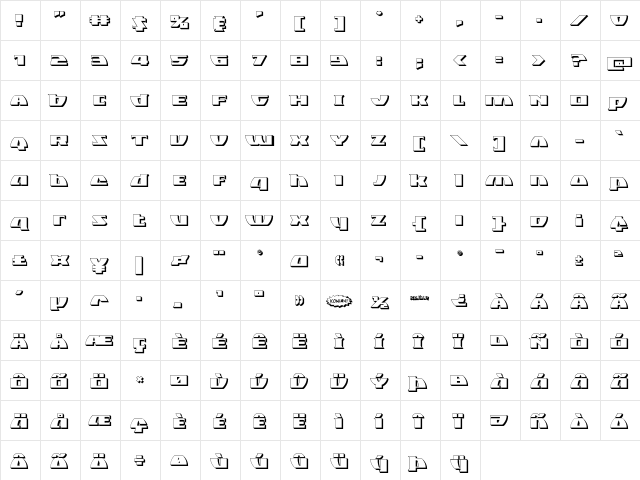
Black Bishop 3D Regular
Design Context for Black Bishop 3D Typeface
Black Bishop 3D is a composed and adaptable typeface that performs quietly and consistently across a wide range of design contexts.